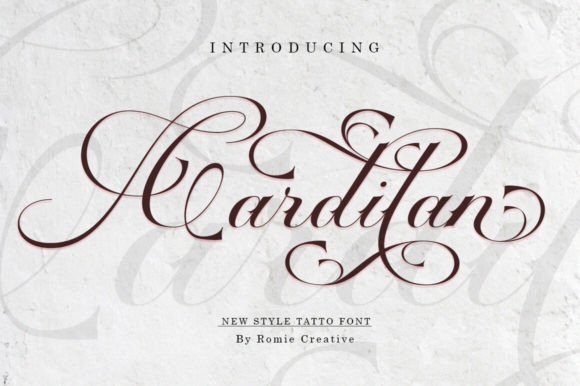
The Designer’s Delight: Unlocking the Power of Cardilan Font
I’ll never forget the frustration I felt while working on a project for a client who wanted a unique, elegant font that would make their brand stand out. I scoured the internet, tried countless fonts, but nothing seemed quite right. That was until I stumbled upon Cardilan Font. With its built-in alternative characters and ease of use, it was like finding a needle in a haystack – or rather, finding the perfect font in a sea of sameness. In this article, I’ll share my experience with Cardilan Font, its features, and how to make the most of it.
- ✨ Alternative characters within the font itself: No need to download separate files or switch between fonts.
- 👍 Elegant and versatile: Perfect for various design projects, from branding to crafting.
While Cardilan Font is amazing, there are a few things to keep in mind:
- 🤔 Learning curve: It may take some time to get familiar with accessing alternative characters and glyphs.
Cardilan Font was created with the intention of providing designers with a versatile, elegant font that would make their projects stand out. The font’s design is inspired by classic calligraphy and modern digital design. The creator aimed to craft a font that would be both beautiful and functional, with a wide range of alternative characters and glyphs.